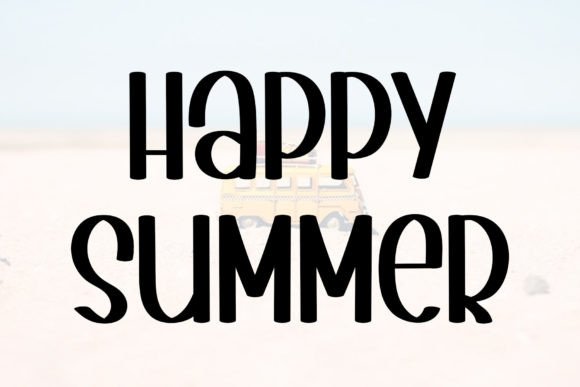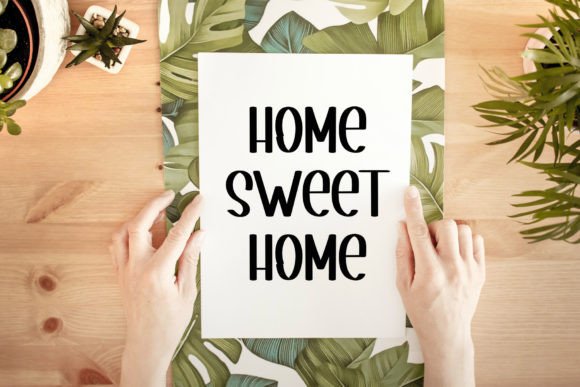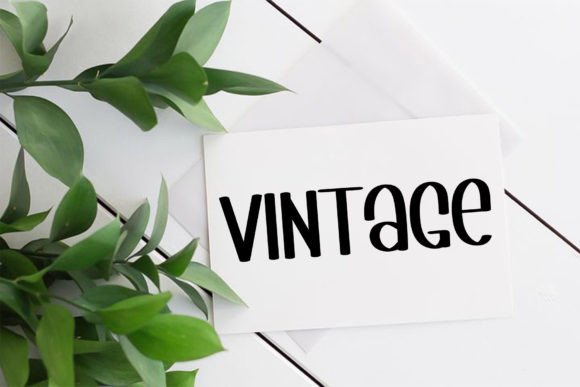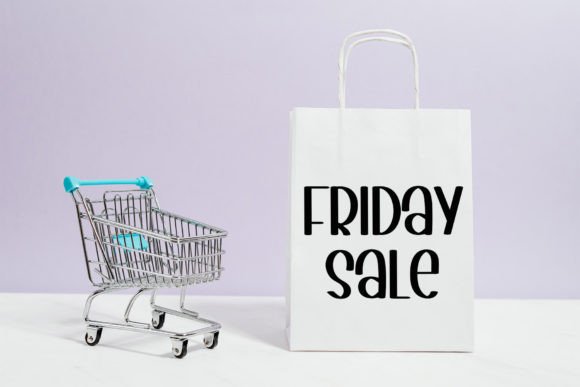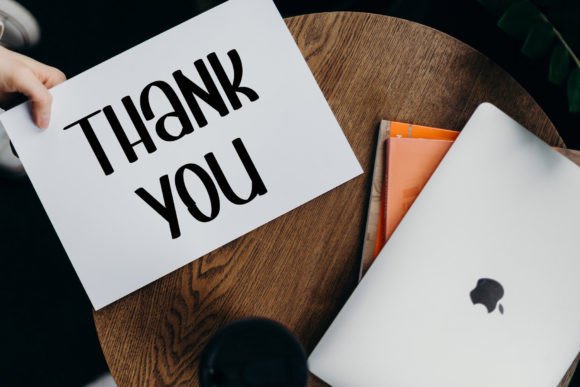
Introducing Chubby Barbie Font: The Playful and Whimsical Display Font
Are you tired of using the same old fonts for your designs? Do you want to add a touch of playfulness and whimsy to your creations? Look no further than the Chubby Barbie Font! This fun and cute display font is perfect for designers and crafters who want to bring a smile to their audience’s faces.
The Charm of Chubby Barbie
Chubby Barbie Font is a unique and quirky font that features chubby letterforms that are sure to capture the attention of your audience. Its playful charm and whimsical personality make it perfect for lighthearted designs, children’s books, and adorable branding projects. Whether you’re creating a logo, a title, or a heading, Chubby Barbie Font is sure to add a sprinkle of joy and laughter to your creations.
What Makes Chubby Barbie Font So Special?
So, what sets Chubby Barbie Font apart from other fonts? Here are a few things that make it truly special:
- Unique Letterforms: The chubby letterforms of Chubby Barbie Font are unlike anything you’ve seen before. They’re playful, fun, and sure to stand out.
- Whimsical Personality: Chubby Barbie Font has a personality that’s all its own. It’s quirky, fun, and full of charm.
- Perfect for Children’s Designs: The playful and whimsical nature of Chubby Barbie Font makes it perfect for children’s books, toys, and other designs.
- Easy to Read: Despite its playful nature, Chubby Barbie Font is easy to read, making it perfect for titles, headings, and other display text.
Uses for Chubby Barbie Font
So, what can you use Chubby Barbie Font for? The possibilities are endless! Here are a few ideas to get you started:
- Children’s Books: Chubby Barbie Font is perfect for children’s books, adding a playful and whimsical touch to your story.
- Branding Projects: Use Chubby Barbie Font to create adorable branding projects, such as logos, packaging, and more.
- Party Invitations: Add a sprinkle of fun and whimsy to your party invitations with Chubby Barbie Font.
- Crafting Projects: Chubby Barbie Font is perfect for crafting projects, such as scrapbooking, card making, and more.
- Use it for Display Text: Chubby Barbie Font is perfect for display text, such as titles, headings, and logos.
In conclusion, Chubby Barbie Font is a fun and cute display font that’s perfect for designers and crafters who want to add a touch of playfulness and whimsy to their creations. With its unique letterforms, whimsical personality, and ease of use, Chubby Barbie Font is sure to become a favorite in your font collection. So why wait? Download Chubby Barbie Font today and add a sprinkle of joy and laughter to your designs!